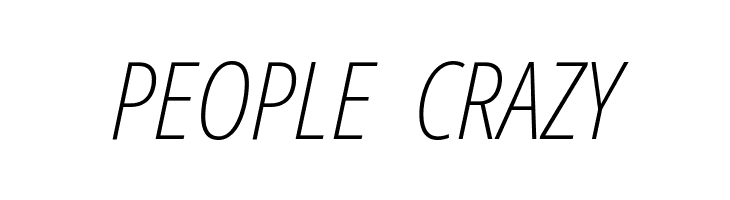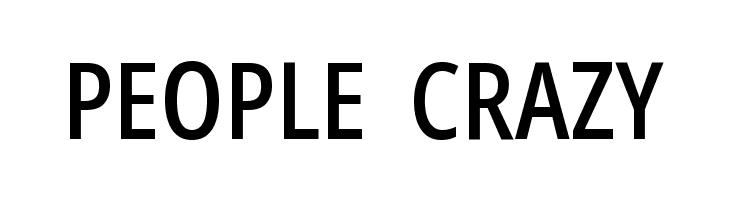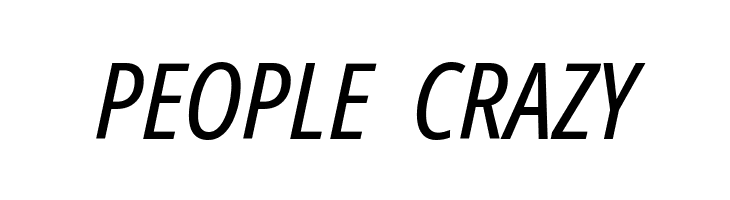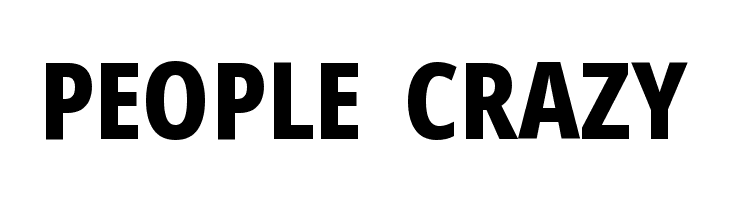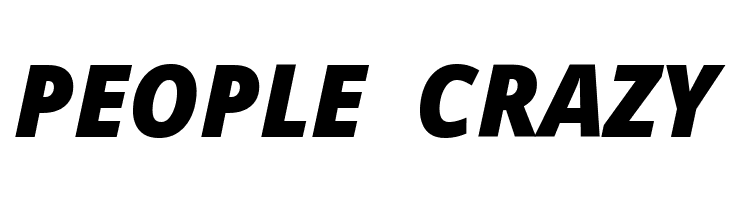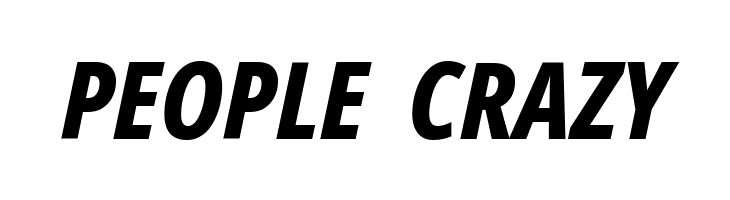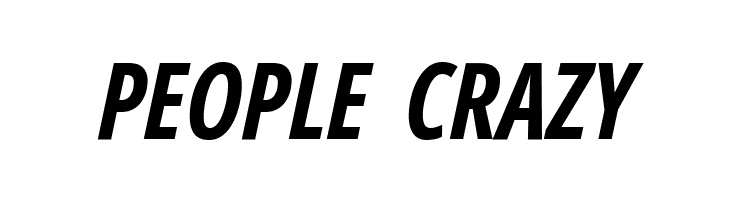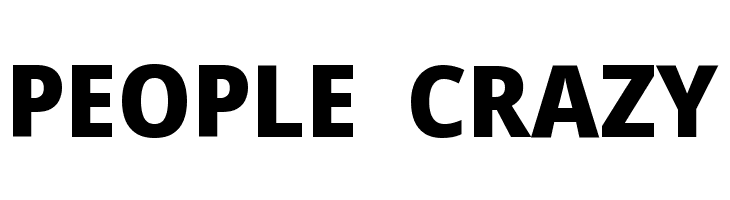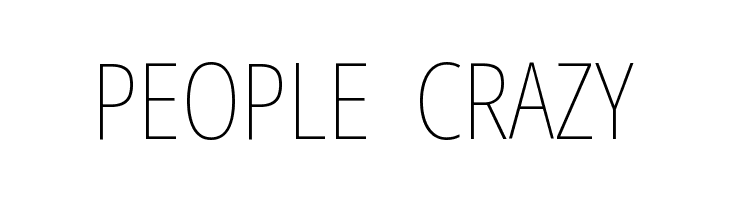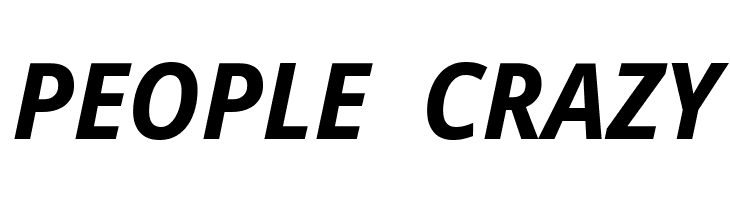
A modern, semi-condensed, semi-bold font ideal for UI and digital displays.
A modern, thin sans-serif font with a semi-condensed width, perfect for clean and minimalist designs.
A thin, modern sans-serif font with a clean and elegant design.
A bold, modern typeface with thick strokes and rounded edges.
A bold, italicized font with a modern and professional style.
A bold, modern sans-serif font with clean lines and excellent legibility.
A modern, condensed sans-serif font with clean lines and high legibility.
A bold, condensed font with a strong, modern appearance.
A bold, condensed, and italic sans-serif font with high contrast.
A bold, condensed sans-serif font with a modern and clean aesthetic.
A modern, bold, and italic sans-serif font with a condensed style.
A bold, condensed sans-serif font with strong lines and tight spacing.
A bold, italic, and condensed sans-serif typeface with a modern and dynamic style.
A modern, condensed sans-serif font with an extra light weight.
A sleek, modern, condensed, extra-light italic font with a clean and sophisticated look.
A modern, condensed sans-serif italic font with tight spacing and low contrast.
A modern, condensed sans-serif font with a light weight and low contrast.
A modern, condensed, light italic sans-serif font.
A modern, condensed sans-serif font with medium weight and excellent readability.
A modern, condensed sans-serif font with italic styling and medium weight.
A modern, condensed sans-serif font with a semi-bold weight, ideal for efficient space usage.
A modern, extra bold, italic, and extra condensed typeface with a sleek design.
A modern, extra-condensed, and extra-light typeface with a clean and sophisticated appearance.